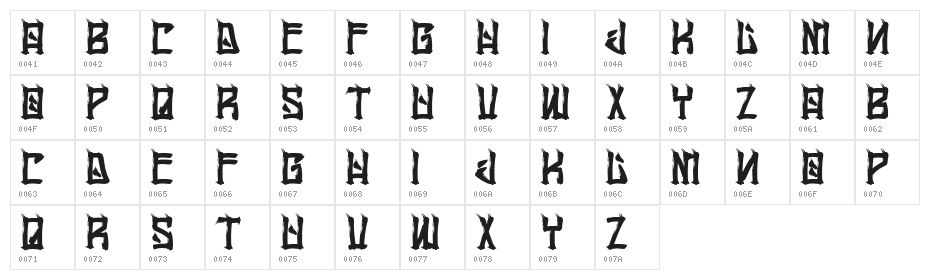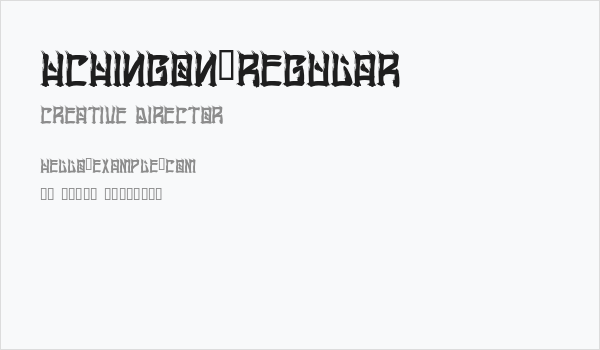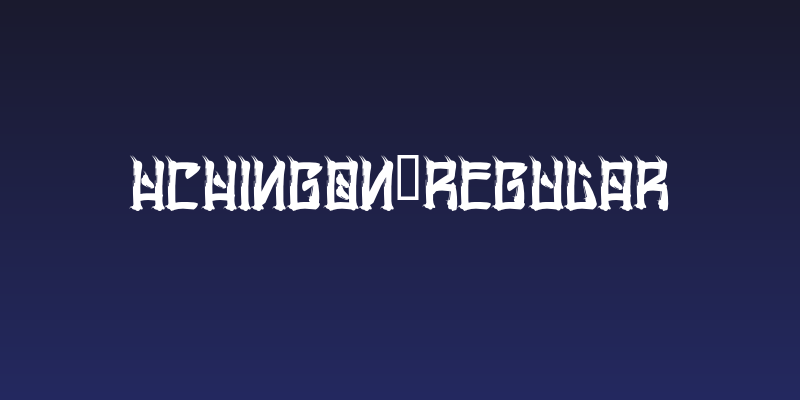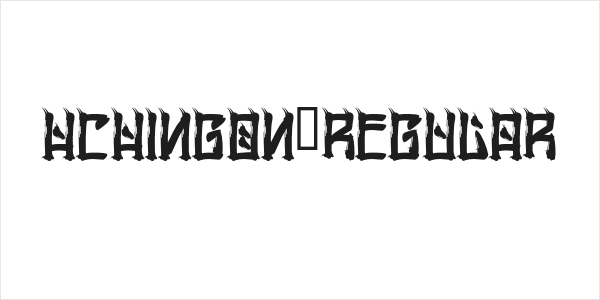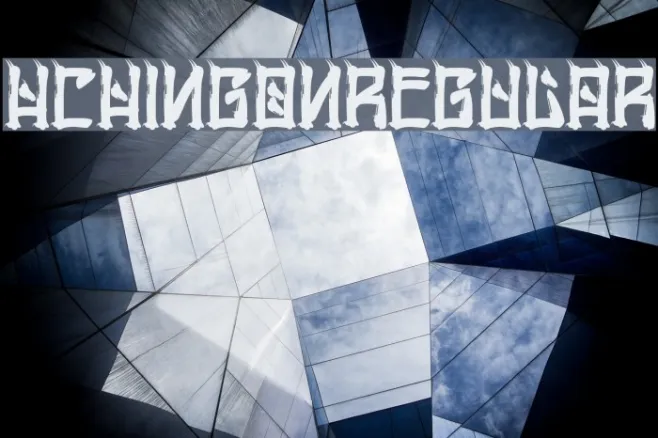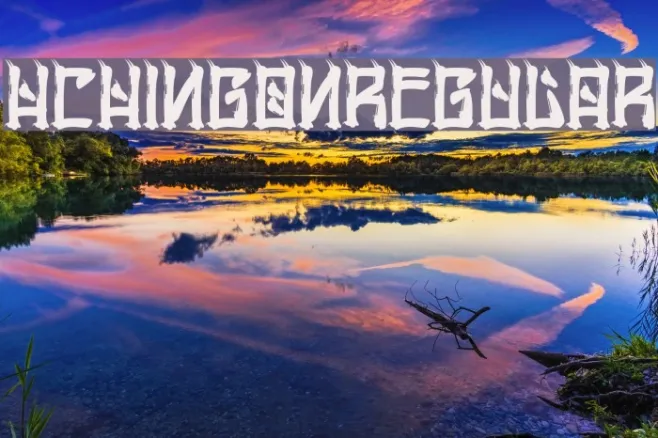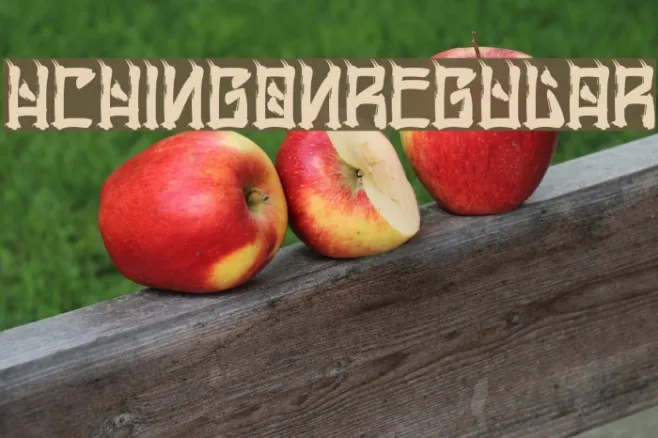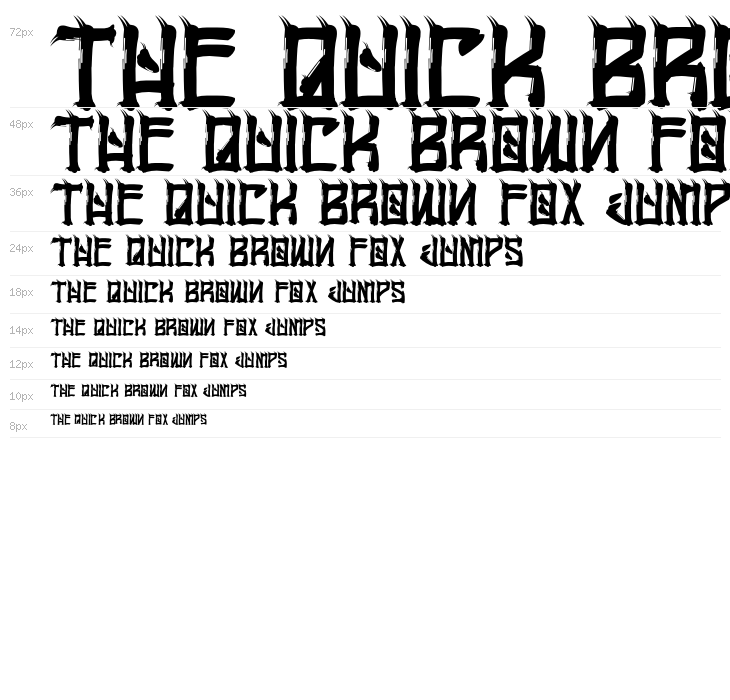
HChingon-Regular Font
HChingon-Regular Description
This font features a bold and aggressive design with sharp, angular edges and a distinct, edgy style. The uppercase letters are characterized by their thick strokes and unique, almost tribal-like embellishments that give each character a dynamic and powerful appearance. The font maintains a consistent weight throughout, emphasizing its boldness. The characters are tightly spaced, enhancing the compact and impactful look. This font is ideal for projects that require a strong visual impact and a modern, rebellious aesthetic.
| Overall Style | Modern, Edgy |
| Proposed Projects | Perfect for album covers, posters, branding for extreme sports, or any project needing a bold, rebellious look. |